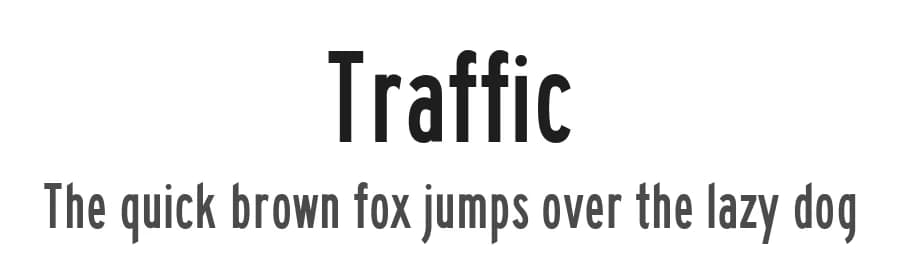
About Traffic Font
Traffic is a sans-serif typeface by Ash Pikachu Font, designed with straightforward functionality for digital and print applications. With 218 glyphs and support for 216+ Latin-based languages, it eliminates the need for multiple font files in multilingual projects. The typeface works well for app interface labels, web headers, social media graphics, and signage layouts where clarity matters. It serves equally well as body text in lightweight digital products, headers in technical documentation, UI button text, email templates, and navigation menus. Because Traffic supports extensive language coverage, it's particularly useful for anyone building interfaces that must function across language barriers and various device sizes.
Its straightforward design philosophy ensures legibility in contexts where decorative details would only distract from communication. For print projects, Traffic suits business correspondence, form headers, and single-color applications where a no-nonsense approach is valued. When working internationally, the broad language support means you can rely on one font rather than juggling multiple typefaces to handle different scripts and regional characters. Pair it with a serif font for body copy in traditional printed materials to create visual contrast and improve readability of longer passages.
Traffic Font is a versatile sans-serif font that works for both headings and body text. Pair it with a contrasting serif or slab serif font to add visual interest and a clear distinction between titles and body copy.